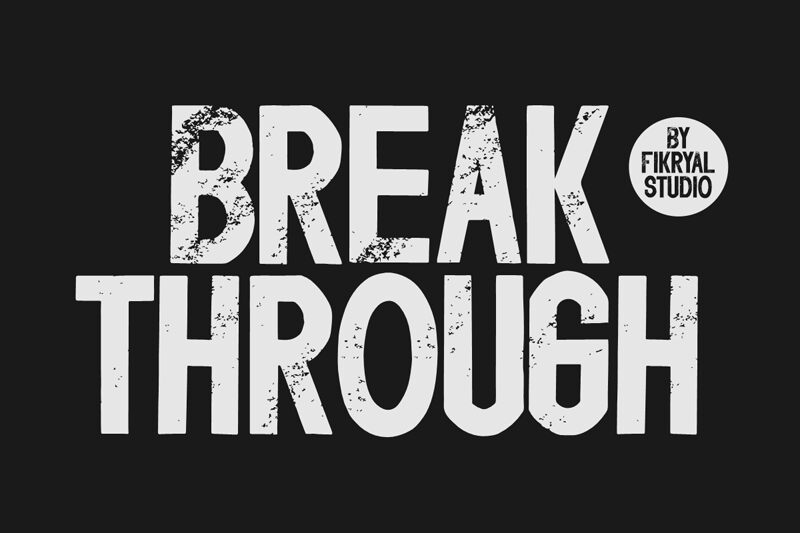
Breakthrough
Break Through, a captivating display font created by Fikryal studio, exudes an air of rugged elegance. Its eroded, condensed design evokes a sense of weathered resilience, making it a standout choice for impactful typographic compositions. The font's unique character shines through in its bold, angular letterforms, which effortlessly command attention and convey a sense of unwavering strength.
This versatile font lends itself well to a wide range of design applications, from striking headlines and eye-catching logos to gritty, industrial-inspired branding and packaging. The font's condensed width allows for seamless integration into compact layouts, while its distinct personality adds a touch of raw, uncompromising style to any project. Whether you're crafting a powerful editorial spread, designing a rugged outdoor brand, or seeking to breathe new life into a retro-inspired aesthetic, Break Through by Fikryal studio is a font that will leave a lasting impression.